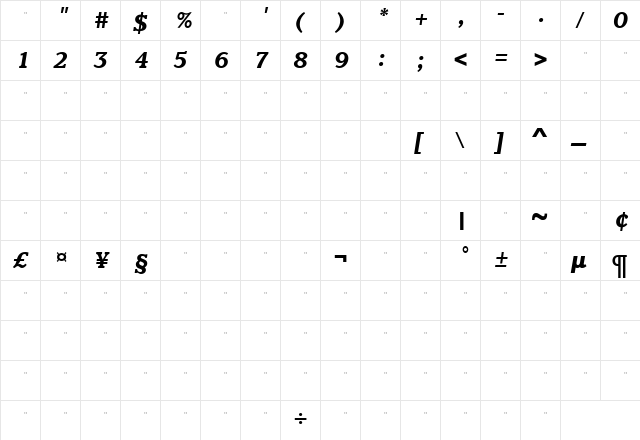
ClaremontBoldItalTab Roman Font Preview
ClaremontBoldItalTab Roman
Design Context for ClaremontBoldItalTab Typeface
ClaremontBoldItalTab offers clean, dependable letterforms without strong stylistic allegiance, making it a practical choice for designers who need flexibility. The heavy weight commands attention and anchors typographic hierarchies.